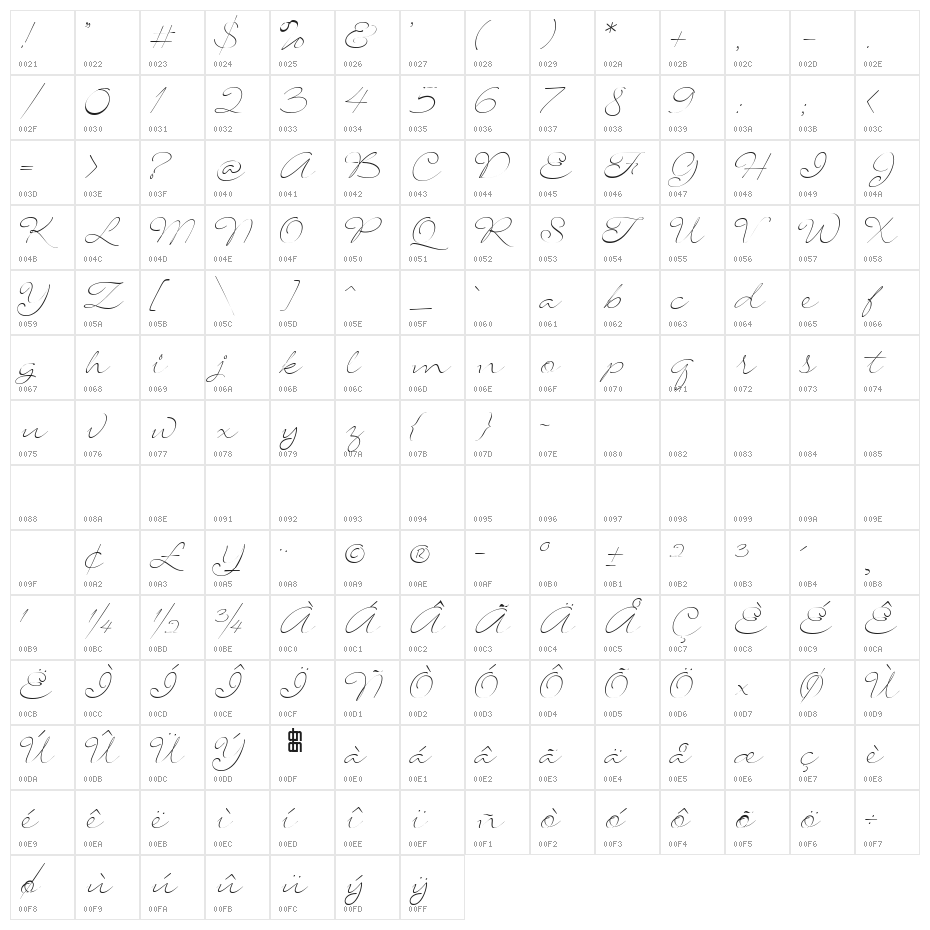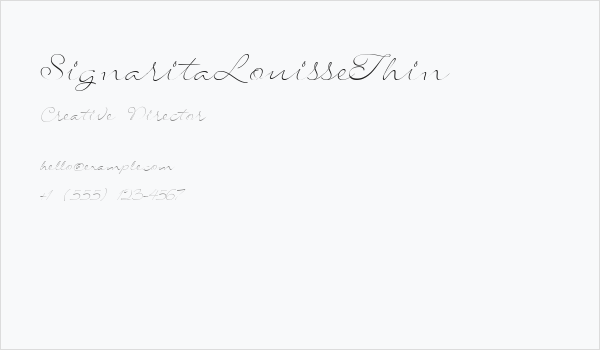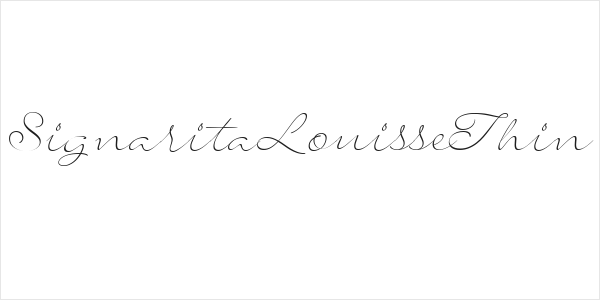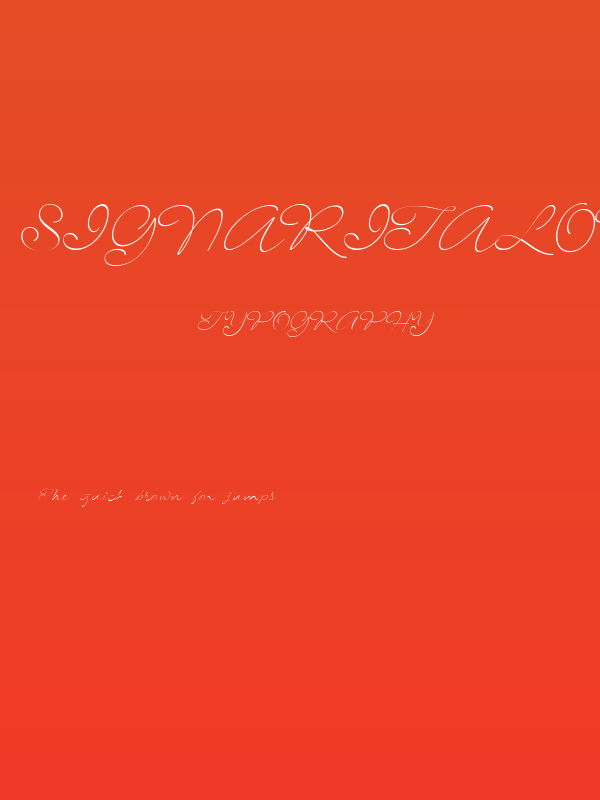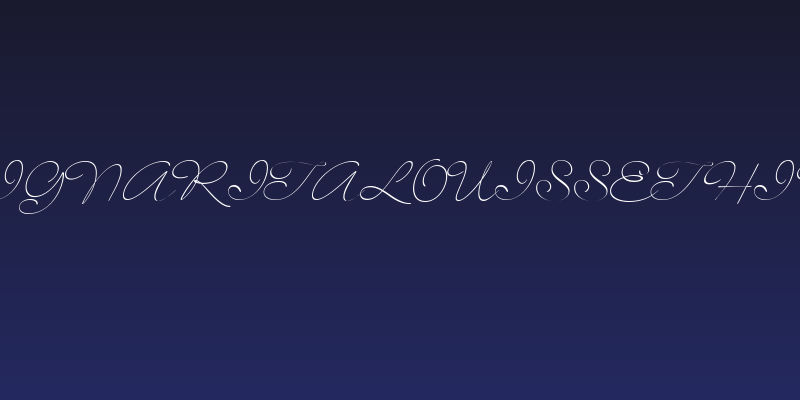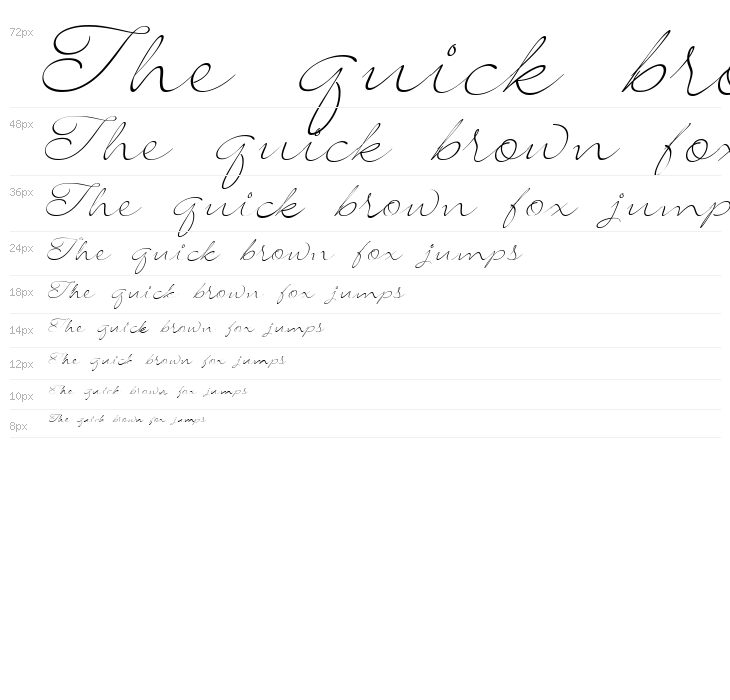
SignaritaLouisseThin Font
SignaritaLouisseThin Description
This elegant script font features a delicate and flowing design, characterized by its thin, graceful strokes and smooth, continuous lines. The uppercase letters exhibit a sophisticated flair with subtle curves and loops, while the lowercase letters maintain a consistent fluidity that enhances readability. The numerals are designed with a similar elegance, ensuring a cohesive look across all characters. Special characters are thoughtfully integrated, maintaining the font's overall aesthetic. This font exudes a sense of refinement and is perfect for projects that require a touch of class and sophistication.
| Use Case | Logos, Invitations, Stationery |
| Proposed Projects | Ideal for wedding invitations, elegant branding, personal stationery, and upscale packaging. |